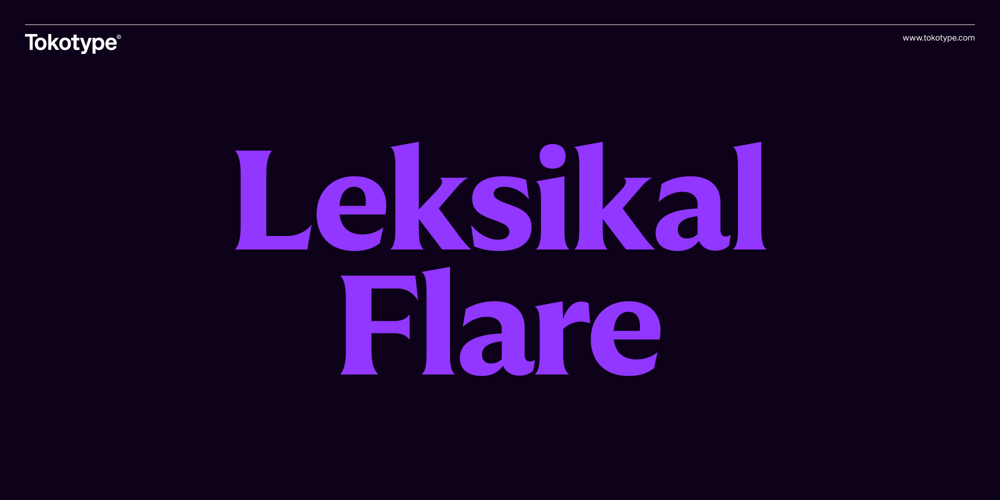
Leksikal Flare Font Family was designed by Gumpita Rahayu and published by Tokotype. Leksikal Flare contains 14 styles and family package options. Leksikal is a versatile font that draws inspiration from the traditional humanist sans typeface. Leksikal also has variable axes that include both sans-serif and serif forms, is adaptable, and is designed with a modern humanist aesthetic. The typeface proportions are based on Gill Sans, which design’s was influenced by both monumental Roman capitals and traditional “old-style” serif letters. This distinctive combination lends Leksikal a style that distinguishes it from other geometric sans-serif fonts.